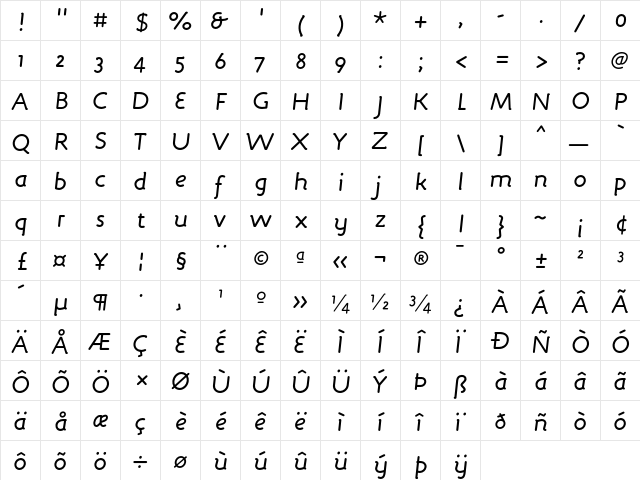
Engine Italic
Design Context for Engine Typeface
Engine offers clean, dependable letterforms without strong stylistic allegiance, making it a practical choice for designers who need flexibility. The dynamic lean of this cut emphasises speed and emphasis in any layout.
Pro Tip: Try Engine for annotation and caption copy alongside an upright companion — the contrast in angle creates a dynamic but ordered typographic system.